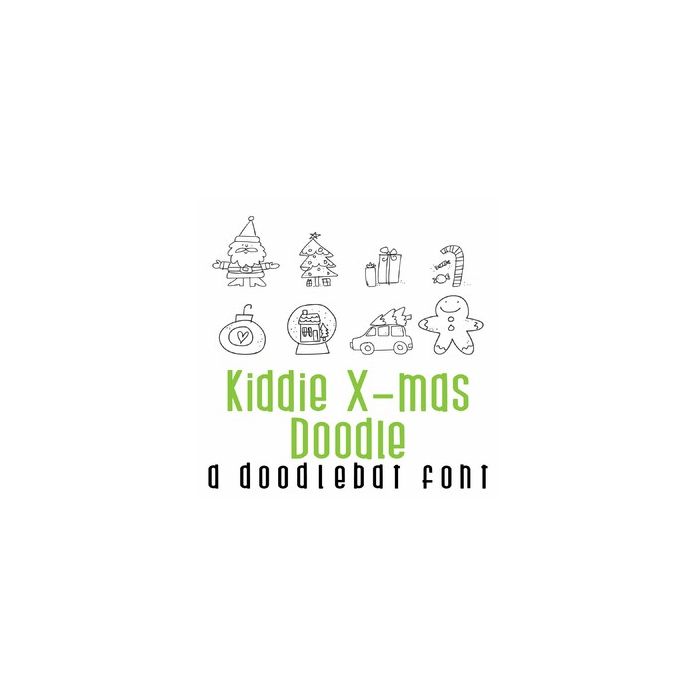
This fun doodlebat font features 26 adorable kid-like Christmas doodles. Perfect for cards, gifts, decor, crafts, scrap book pages, planner stickers and more!